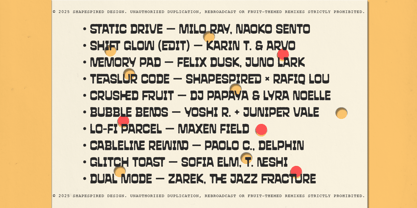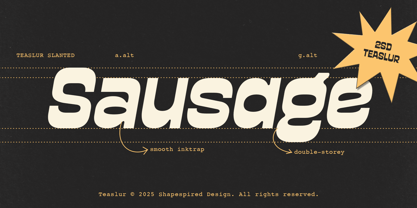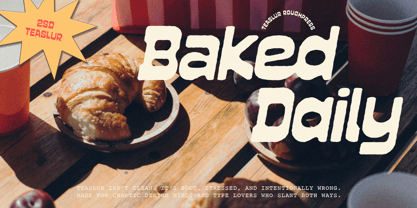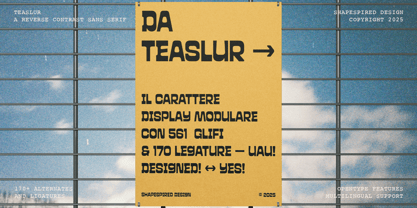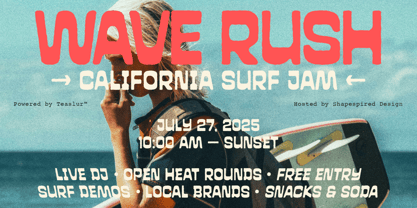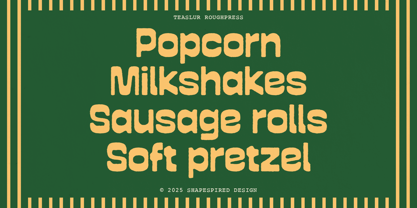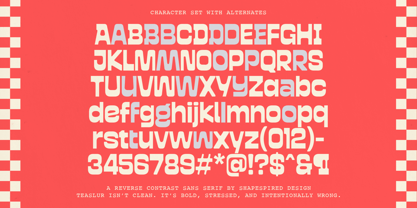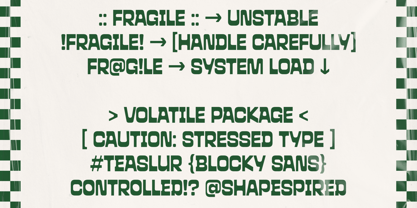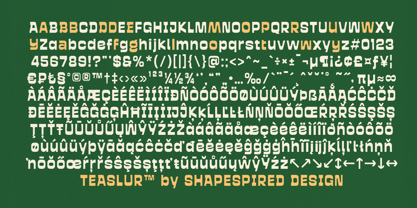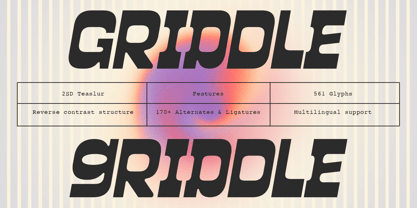
Teaslur
by Shapespired Design
The Teaslur Font Family was designed by Muhajir Saputra and published by Shapespired Design. Teaslur contains 6 styles and family package options. More about this family
Teaslur is a bold, modular display typeface built with reverse contrast and a whole lot of attitude. Drawing inspiration from industrial signage, retro packaging, and experimental type systems, Teaslur balances brutal structure with quirky expression — all while keeping things readable, stylish, and loud.
Designed for designers who dare to stand out, it comes packed with powerful features that let you customize and push the limits of type.
Let your message slur. Loud. Bold. Slanted. Rough. Teaslur adapts to your rhythm.
Key Features:
- Reverse Contrast Sans Serif with Modular Rhythm
- 6 Fonts: Regular, Slanted, Backslanted, Roughpress, Roughpress Slanted & Roughpress Backslanted
- Uppercase & Lowercase
- Latin Extended A & B
- 561 Glyphs Total
- 170+ Alternates & Ligatures
- Symbols, Arrows & Punctuation
- Multilingual Support
Designers: Muhajir Saputra
Foundry: Shapespired Design